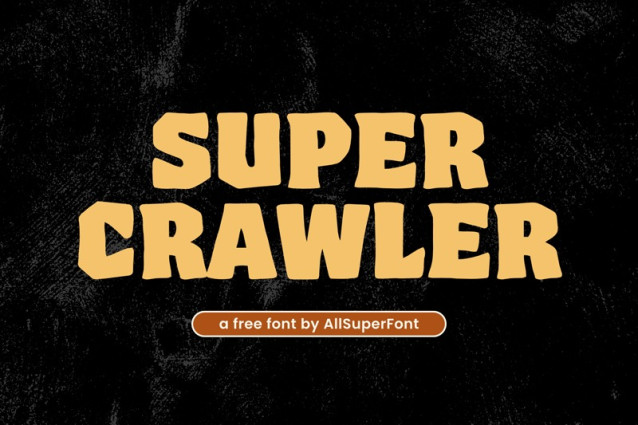
Super Crawler Font is a simple and modern display font suitable for quotes, logos, headings, titles, and many more. Use it on any of your creative projects, and your designs will become outstanding!